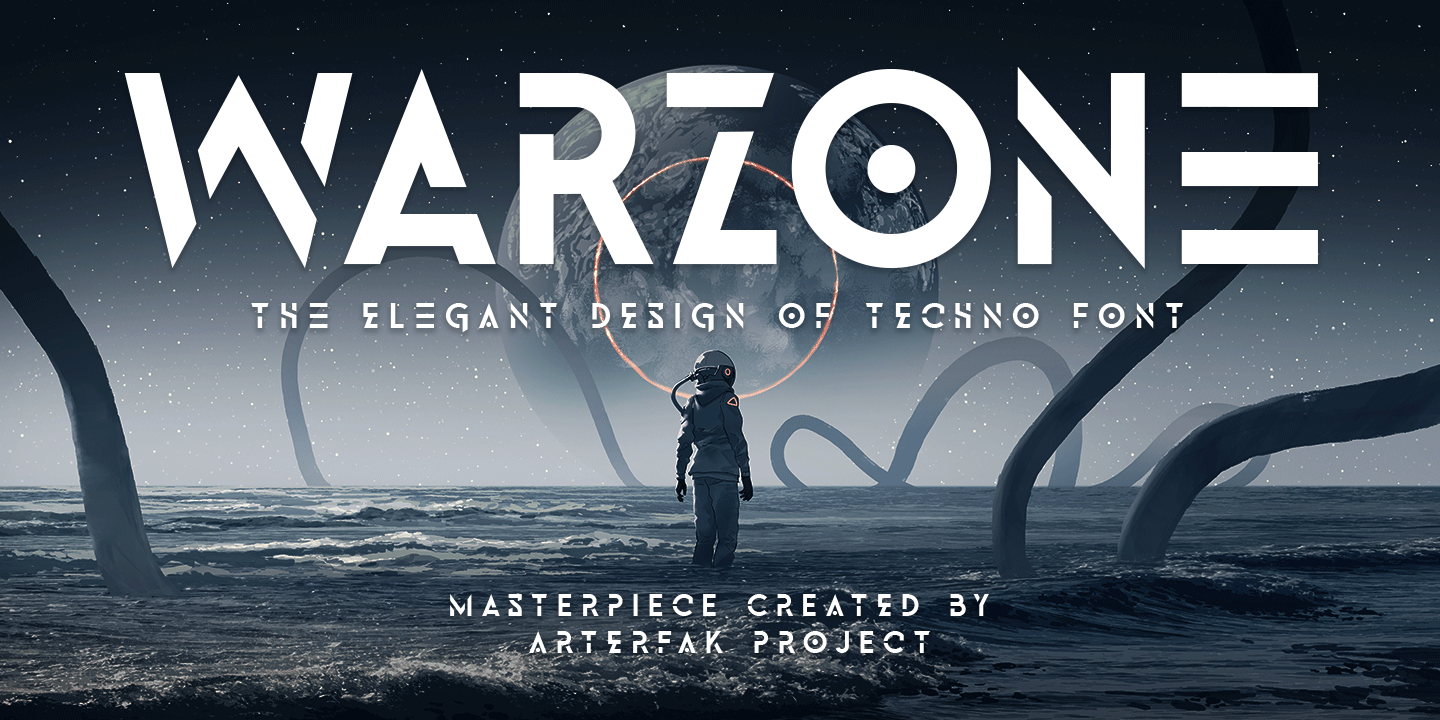
The Warzone Font excels in various design applications including military gaming interfaces, tactical simulation graphics, combat sports branding, action movie poster design, strategic board game materials, survival gear marketing, defense contractor communications, military history publications, competitive tournament promotions, and intense entertainment projects that demand battlefield intensity and tactical sophistication.
What makes the Warzone Font exciting is its powerful embodiment of tactical precision and battlefield intensity through letterforms that capture the essence of strategic combat and military efficiency. This typeface demonstrates exceptional strength through carefully engineered characters that suggest the sharp edges of tactical equipment, the disciplined precision of military operations, and the intense focus required for strategic success. The font's combat personality makes it perfect for gaming companies and tactical organizations seeking to communicate strategic superiority, operational efficiency, and the kind of battlefield-tested reliability that wins decisive victories through typography that literally commands attention with military precision.
The Warzone Font family typically includes tactical weight variations that enhance the military aesthetic, featuring bold styles with sharp angles and extended character sets optimized for gaming interfaces and strategic communications. These family options often include combat-inspired alternates, tactical symbols, and military decorative elements that provide designers with comprehensive tools for creating authentically intense typography that honors military precision while maintaining contemporary design appeal and strategic visual impact.
Gaming industry professionals and tactical organizations consistently select Warzone Font Free Download for projects requiring typography that communicates strategic intensity and operational excellence. This typeface delivers exceptional performance in gaming marketing, tactical branding, and competitive communications where establishing dominance and creating immersive battlefield atmosphere is essential for audience engagement. The font's military character makes it particularly effective for strategy games and combat sports applications. Download Warzone Font Free Download today to access this commanding typeface that transforms tactical communications with its battlefield intensity and military sophistication, creating compelling combat experiences that demonstrate strategic superiority while maintaining the disciplined precision that defines successful military operations and competitive gaming excellence.